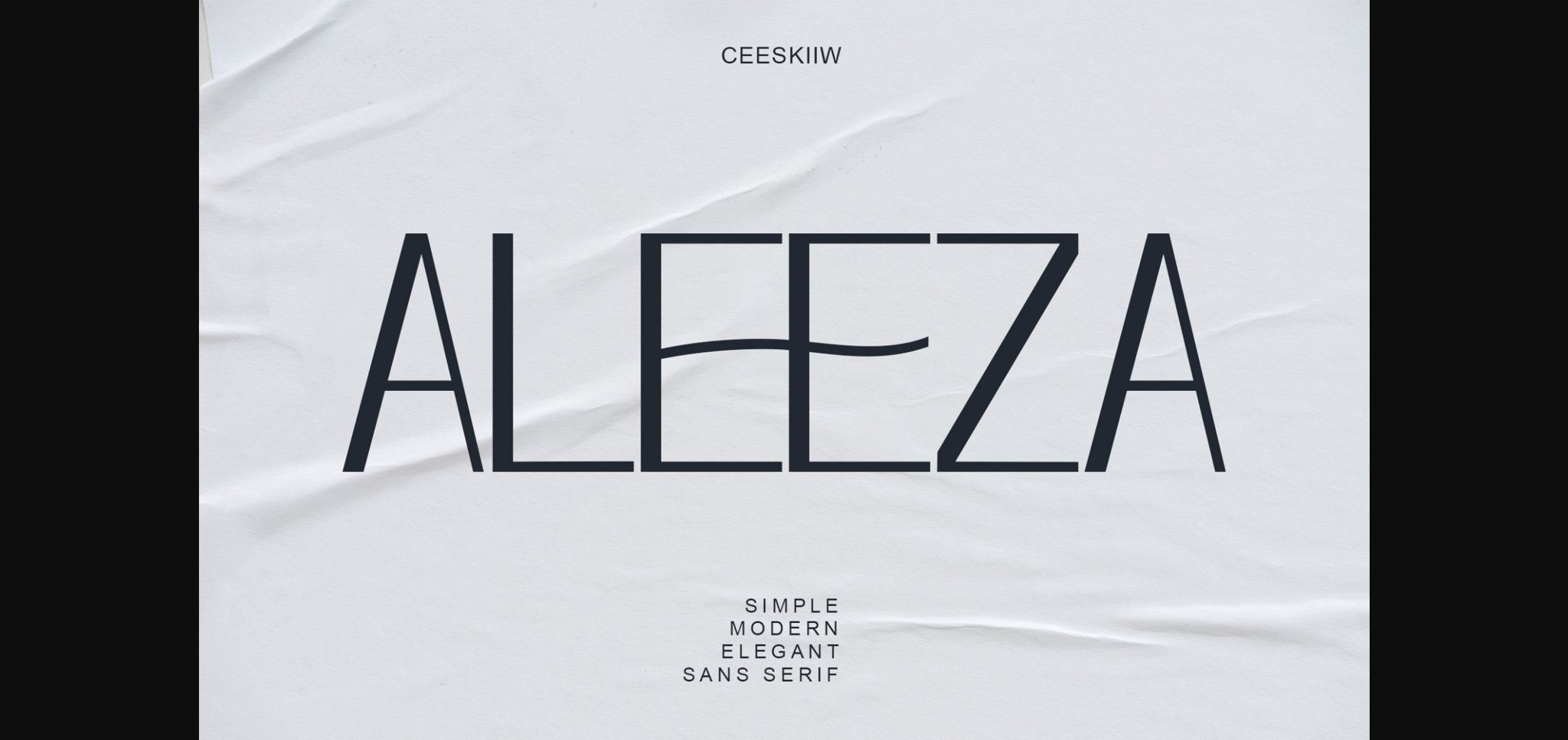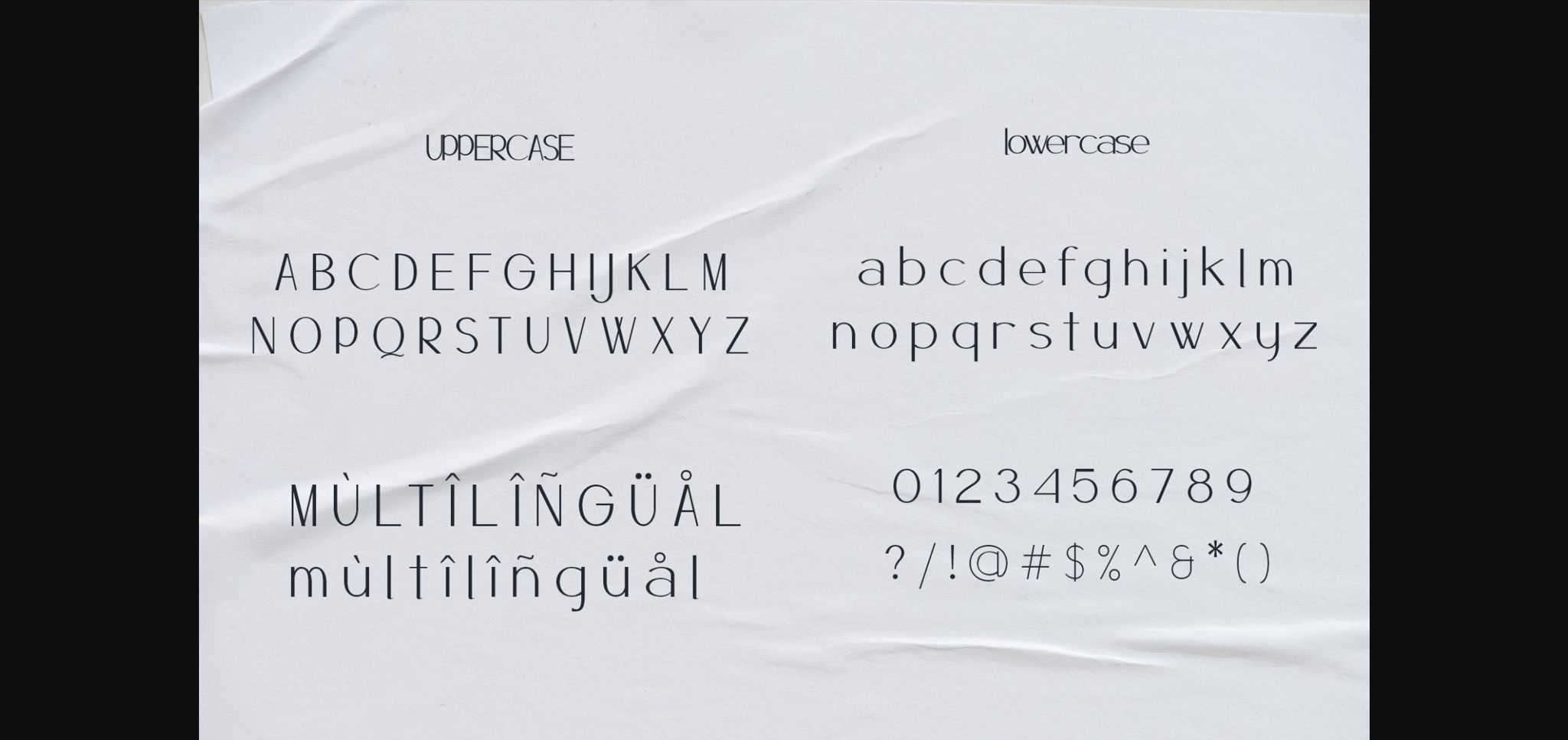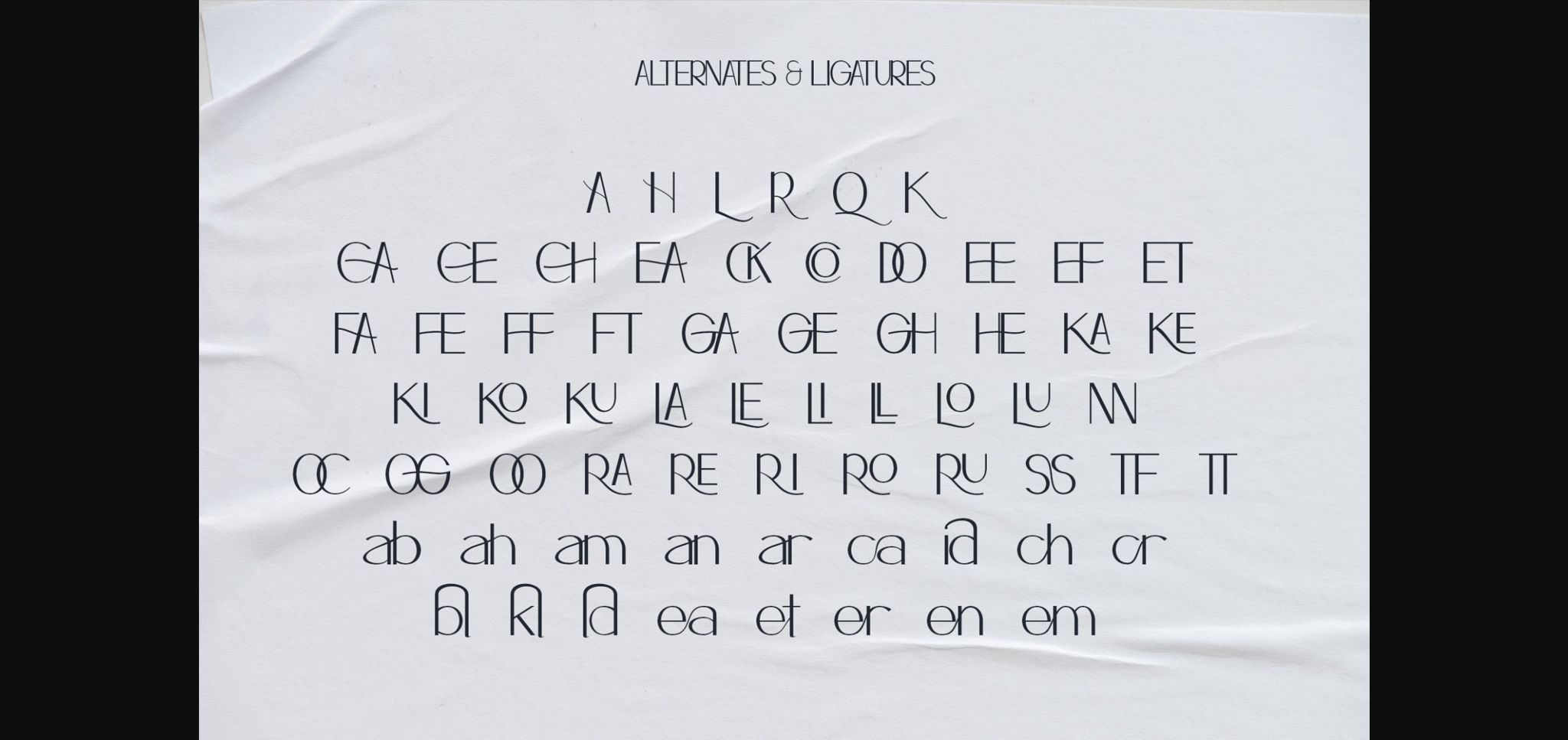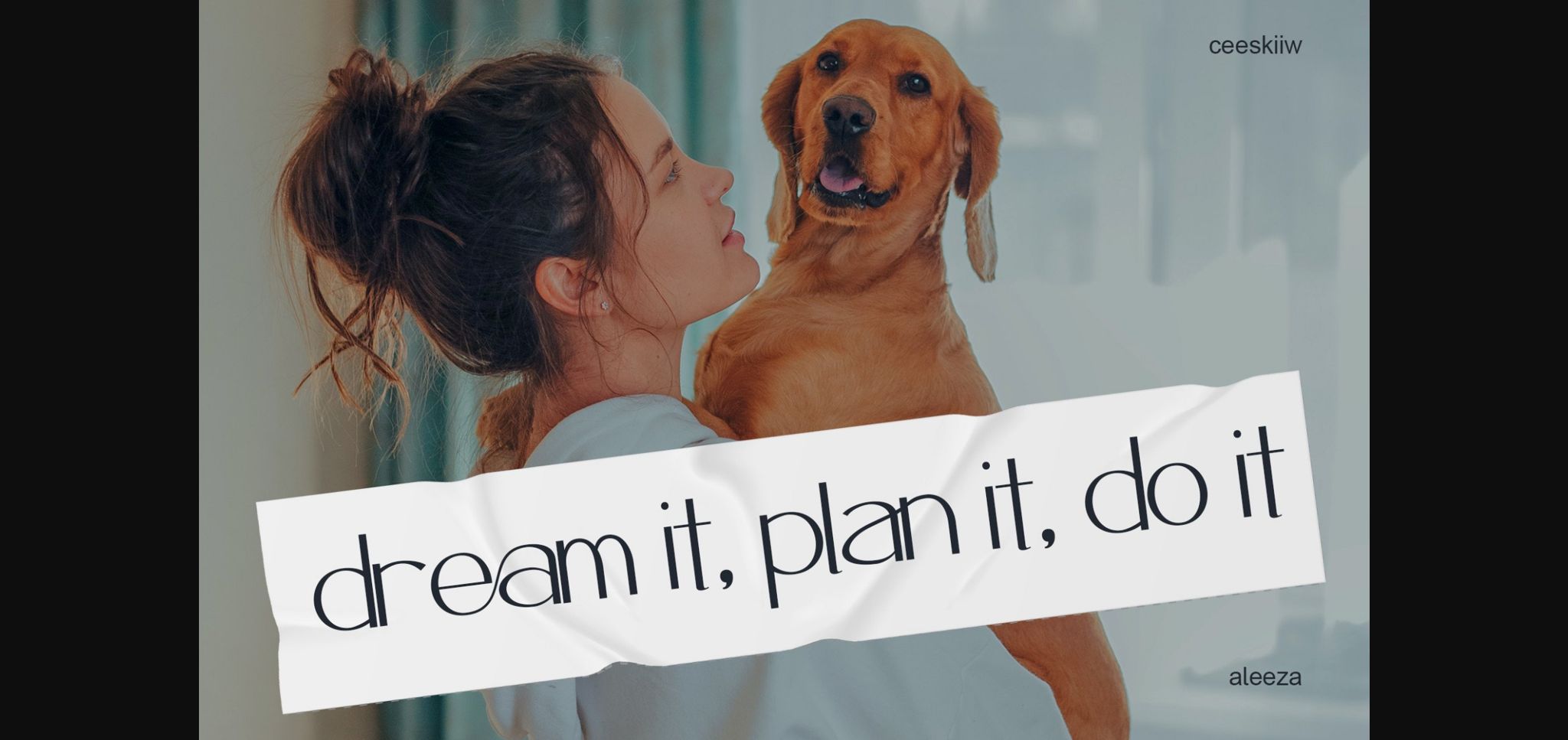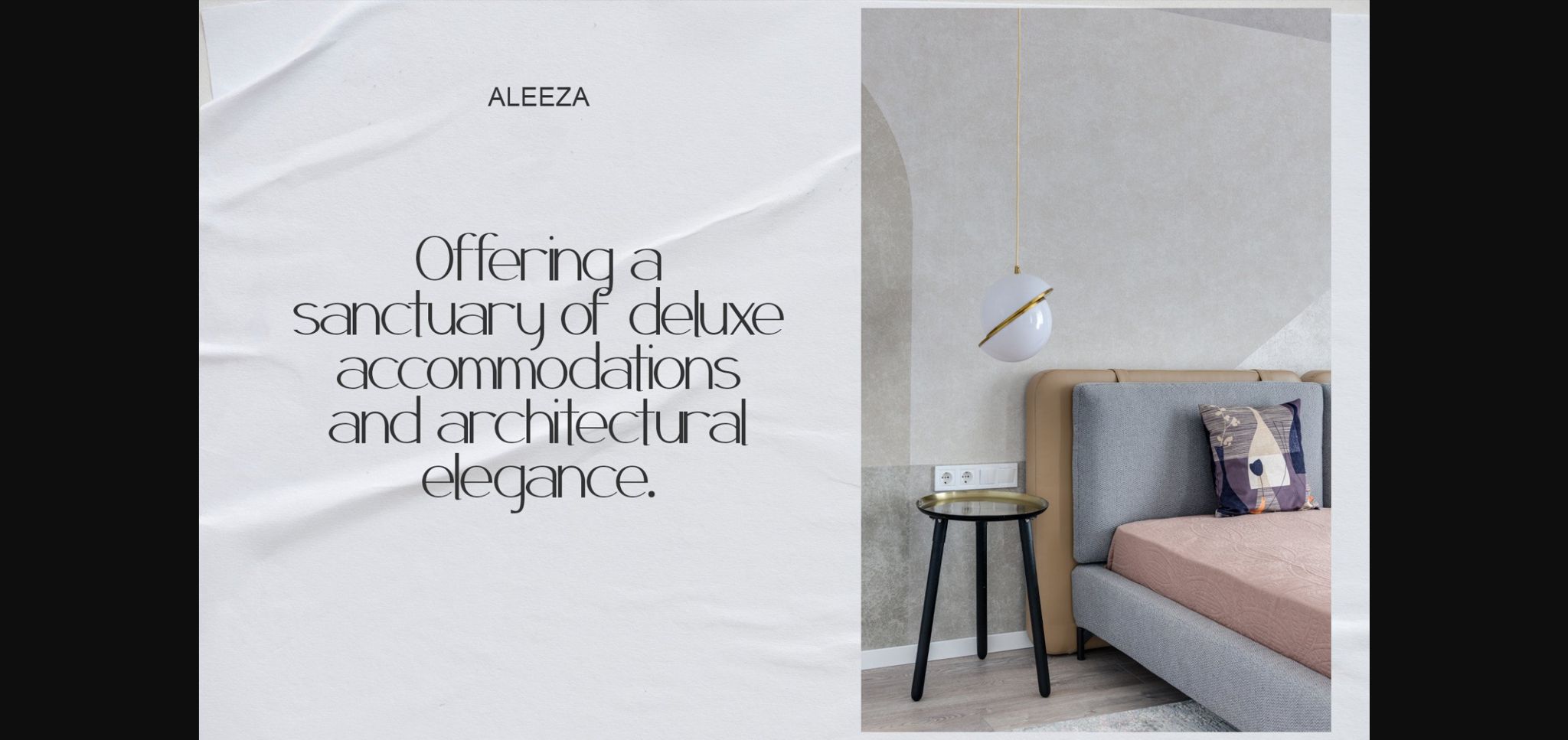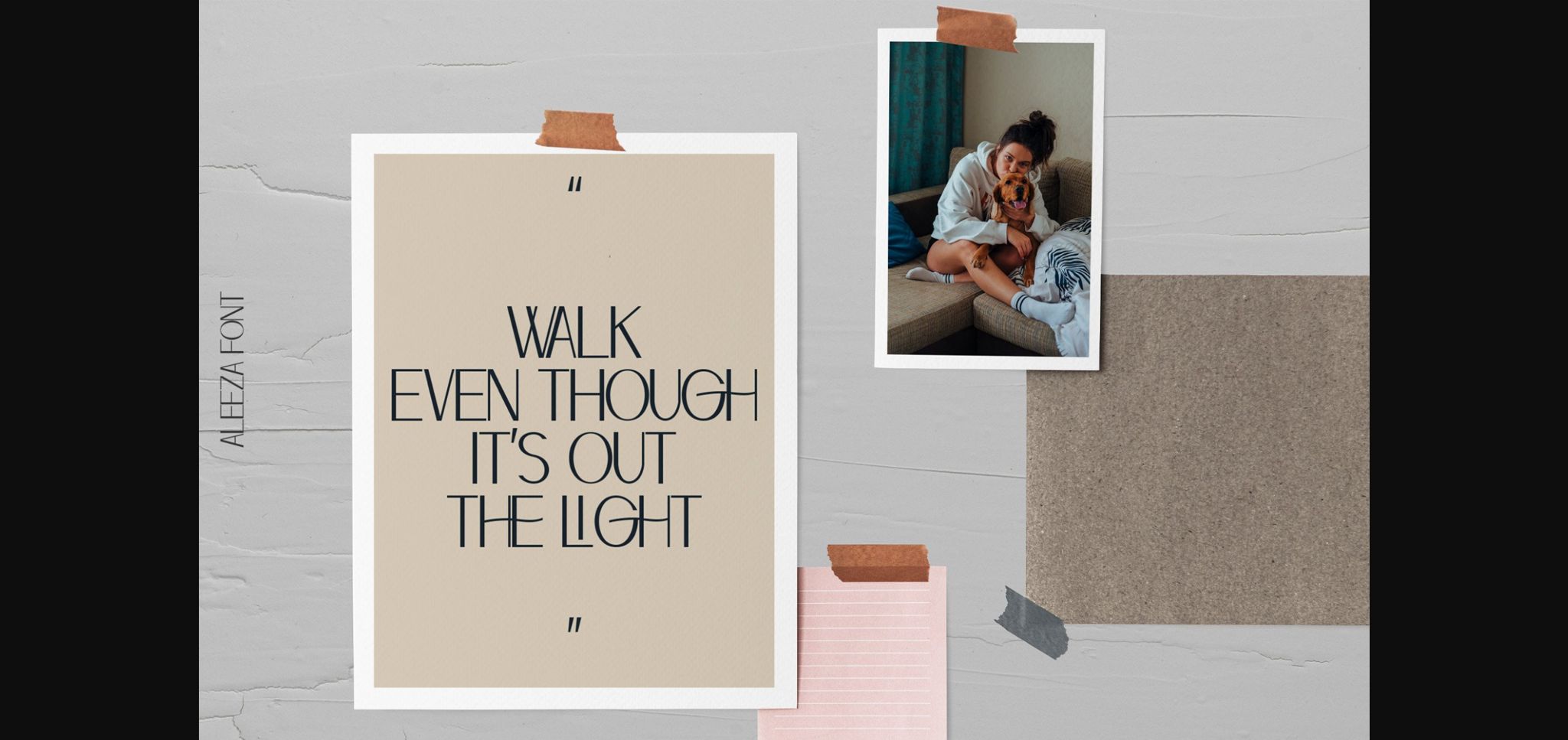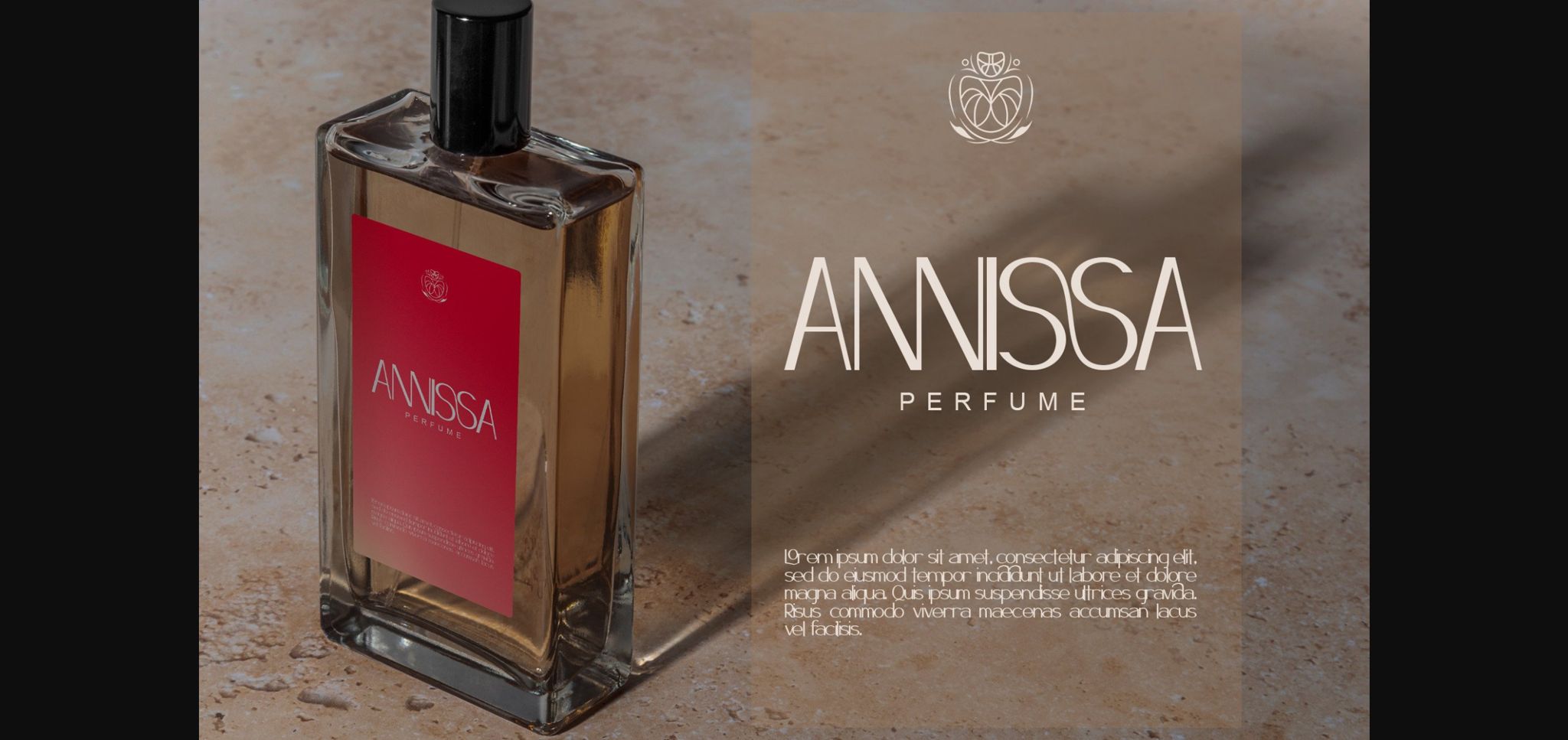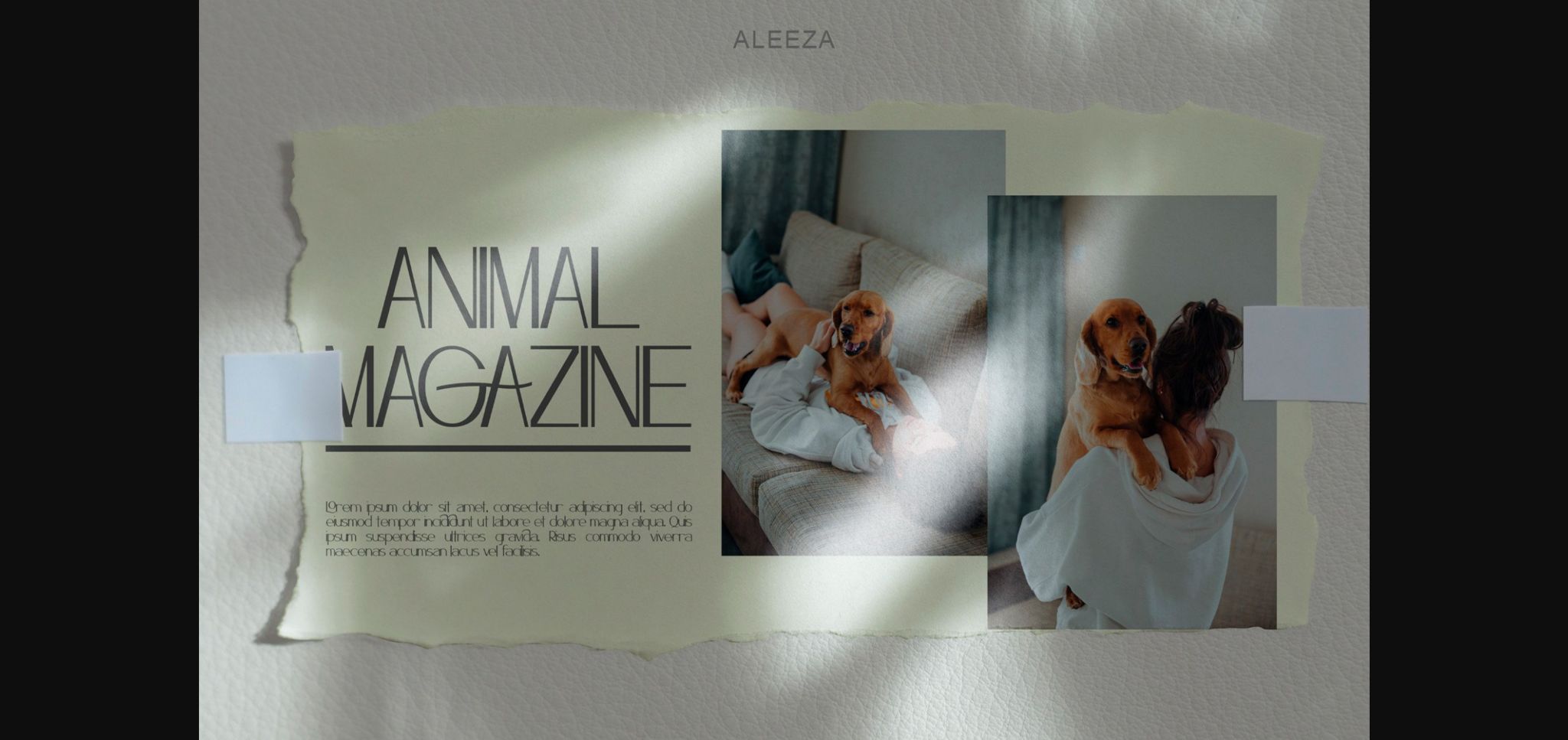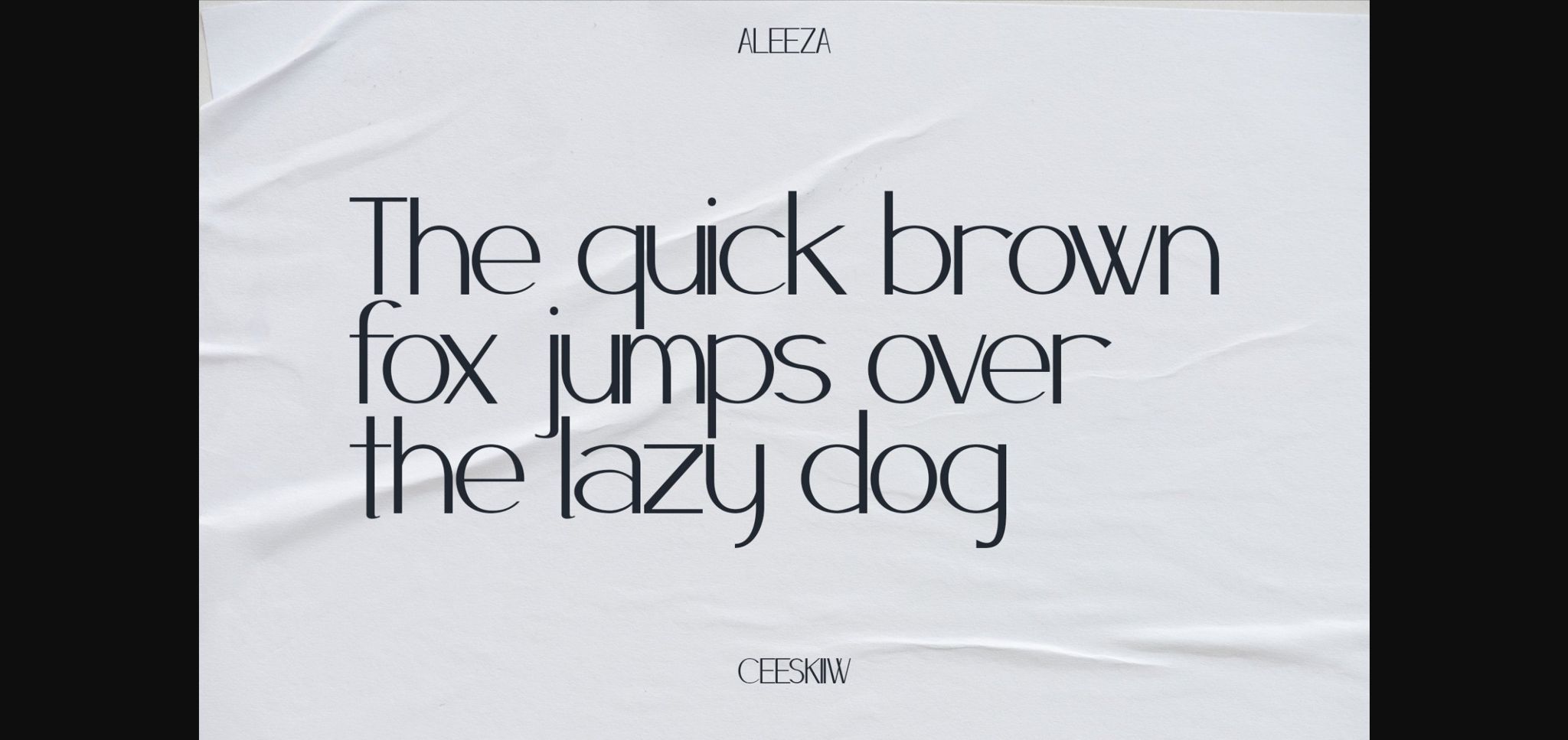
Aleeza Font
About Aleeza Font
Aleeza is my new elegant sans serif font that will bring in your projects a touch of luxury and style. It’s the perfect match for logotypes, branding, wedding monograms and invitations, blog headlines, and much more. Flip through all the previews and get inspired by this font.